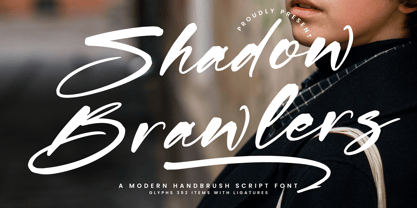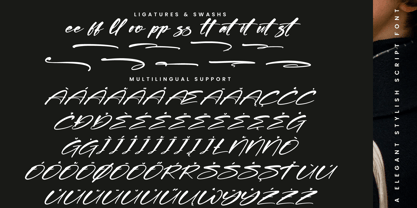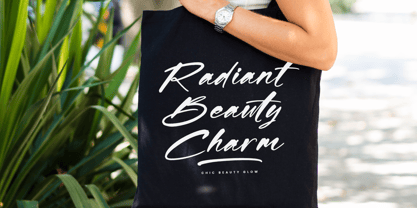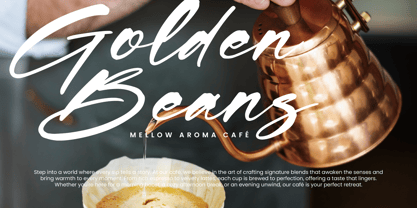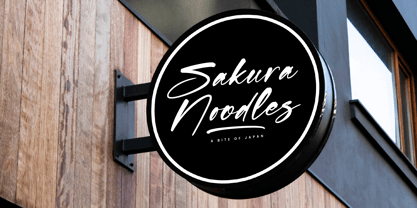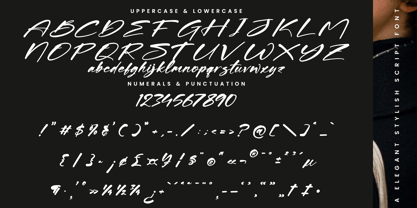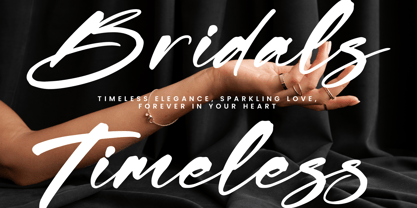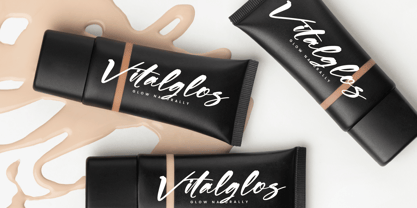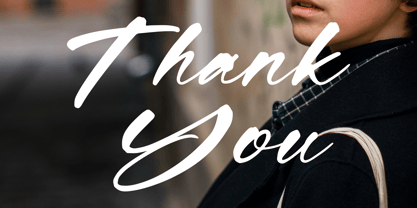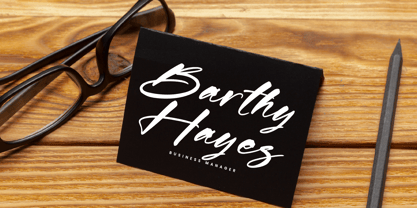
Shadow Brawlers
by Integritype
The Shadow Brawlers Font Family was designed by Ranndy Rizky Febrian and published by Integritype. Shadow Brawlers contains 2 styles and family package options. More about this family
Shadow Brawlers - A Modern Handbrush Script Font, from Integritype Studio, perfect for any project like: logos, branding projects, homewares designs, product packaging, mugs, quotes, posters, shopping bags, t-shirts, covers books, business cards, invitation cards, greeting cards, labels, photography, watermarks, special events and all your other luxury projects that require a premium taste.
Designers: Ranndy Rizky Febrian
Foundry: Integritype